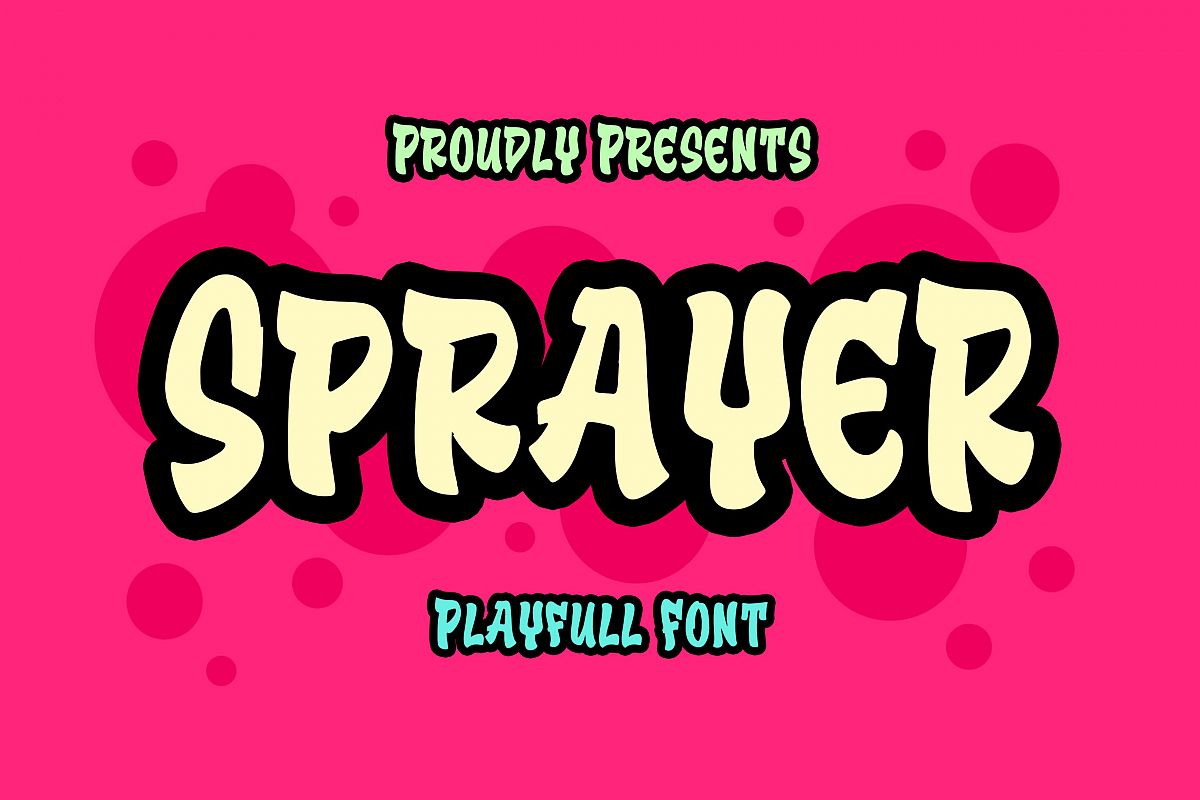
Introducing of our new product the name is Sprayer Playfull Font. Sprayer inspired by graffiti style with a fun theme very good for graffity poster, Hip Hop music, kids poster, flyer, childrenbook, cartoon, comic etc
MULTILINGUAL ACCENT :
ŽžŠŒšŸÀÁÂÃÄÅÆÇÈÉÊËÌÍÎÏÐÑÒÓÔÕÖØÙÚÛÜÝßàáâãäåæçèéêëìíîïñòóôõöøùúûüýÿFEATURES :